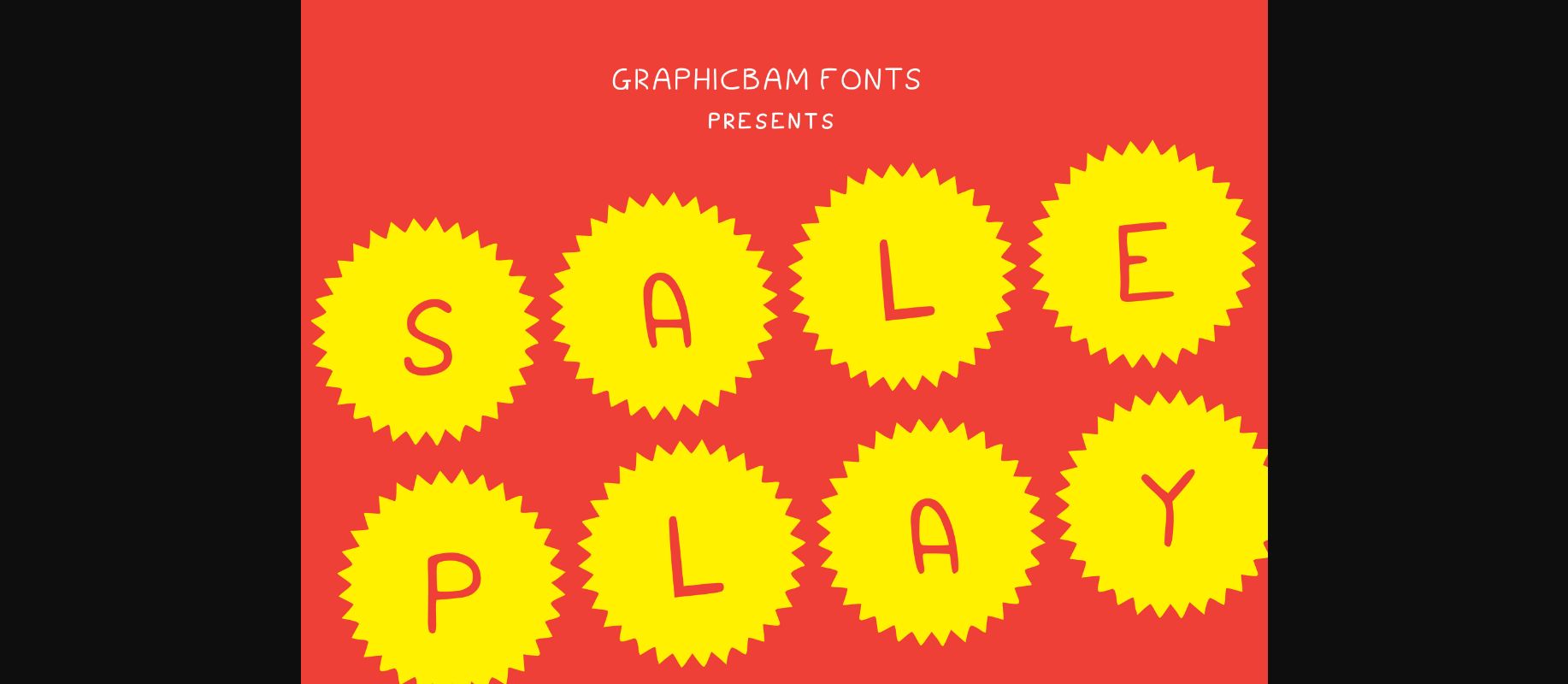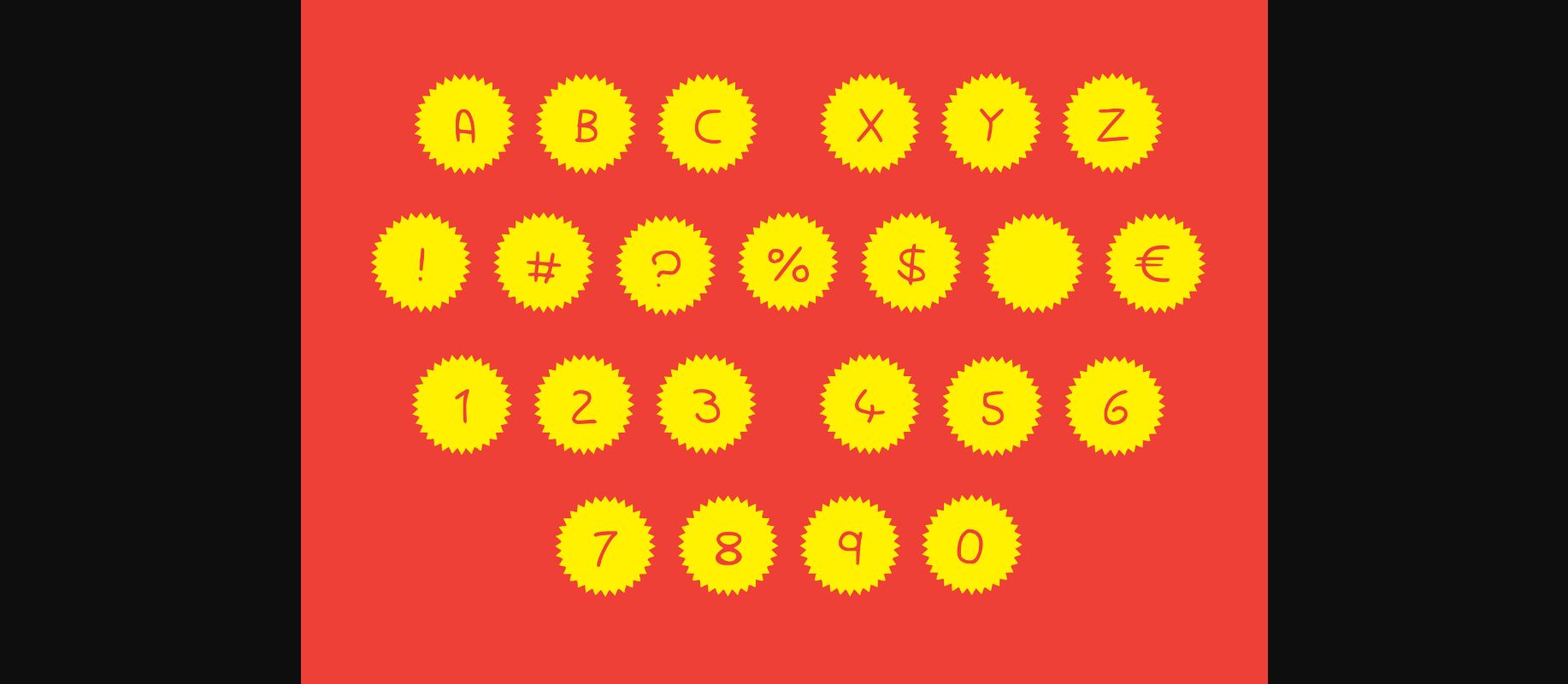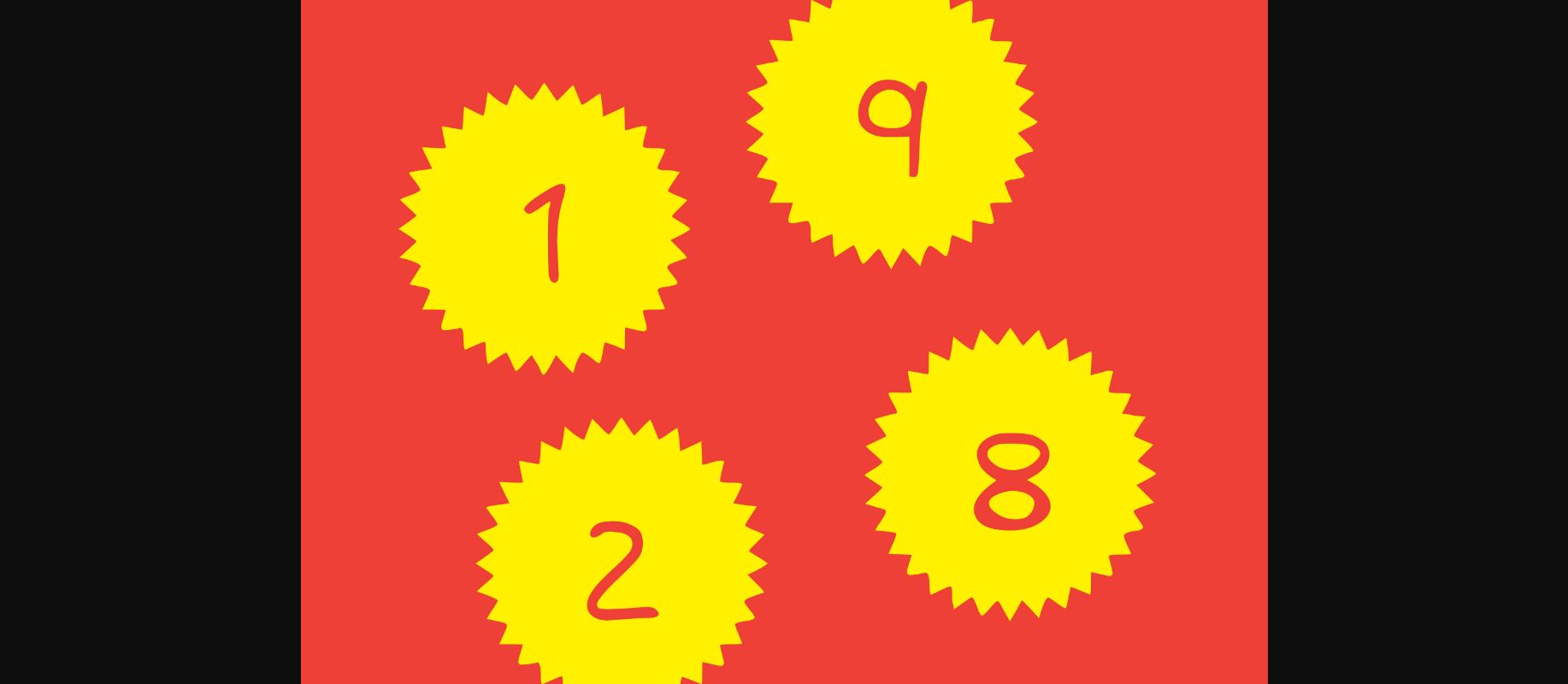
HomeDecorative FontsSale Play Font Decorative Fonts Sale Play Font FacebookXPinterestWhatsApp 1 of 5 ... Sale Play Font Poster 2... Sale Play Font Poster 3... Sale Play Font Poster 4... Sale Play Font Poster 5... About Sale Play Font Sale Play is a cool, useful and adaptable decorative font. Whatever the topic, this font will be a wonderful asset to your font library, as it has the potential to enhance any creation. DOWNLOAD NOW People also explored Grande Parade JNL Font All Star Font Christina Font Esmeralda Font Home Work Font Darling Rosie Font Freshest Watermelon Font Delight Lettering Font Christmas Magic Font 325 0 TagsSale Play Font Previous articlePlay Hearts FontNext articlePlay Frame Font LEAVE A REPLY Cancel reply Comment: Please enter your comment! Name:* Please enter your name here Email:* You have entered an incorrect email address! Please enter your email address here Website: Save my name, email, and website in this browser for the next time I comment. Personal Use Free Good Timing – Bold Personal Use Free Read more about this font Good Mood Personal Use Free Read more about this font Strasua Personal Use Free Read more about this font Adrenaline Personal Use Free Read more about this font BLOG How to Install and Use Fonts on Windows, macOS, and Web Projects How to Install and Use Fonts on Windows, macOS, and Web Projects Fonts are a crucial part of design and branding. Whether you’re designing a... 5 Fonts That Will Dominate Design Trends in 2026 Top 10 Handwritten Fonts That Elevate Your Designs Exploring Font Trends